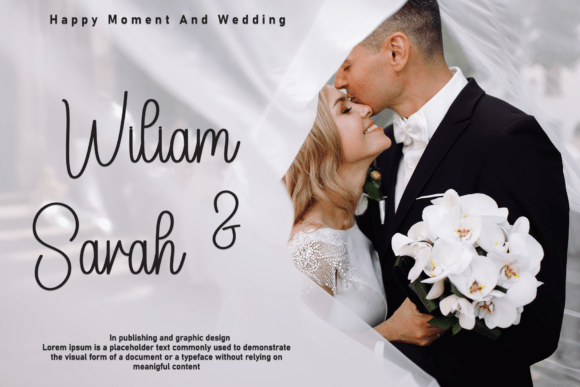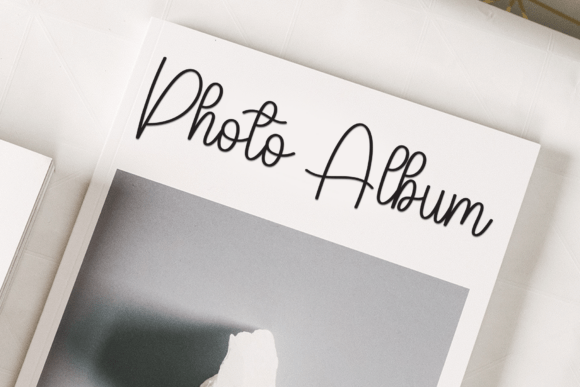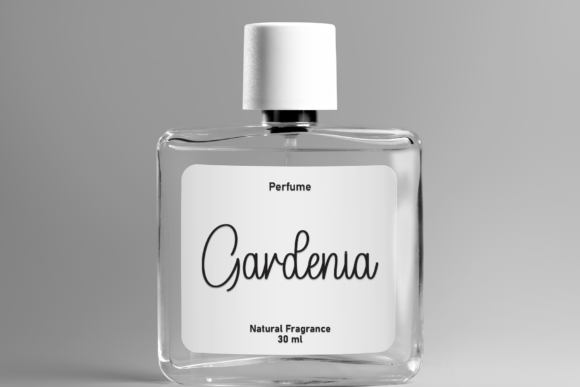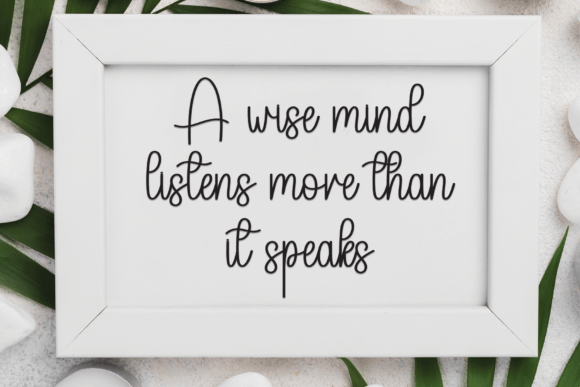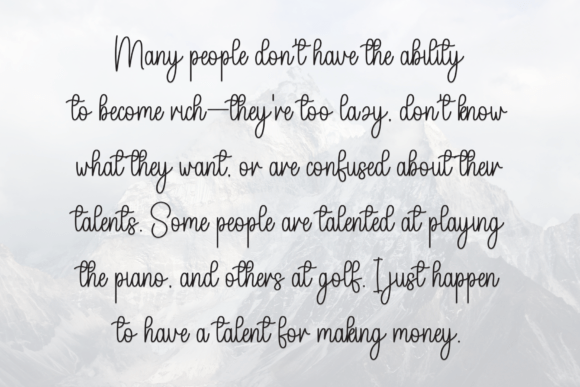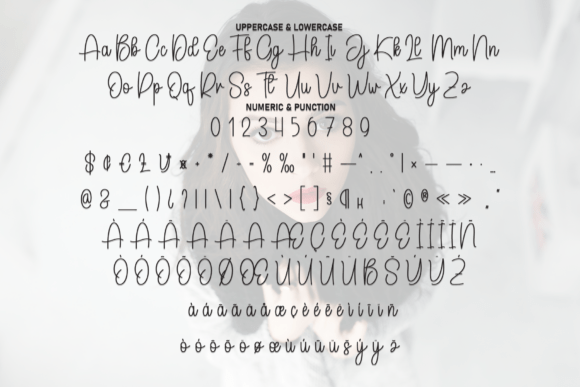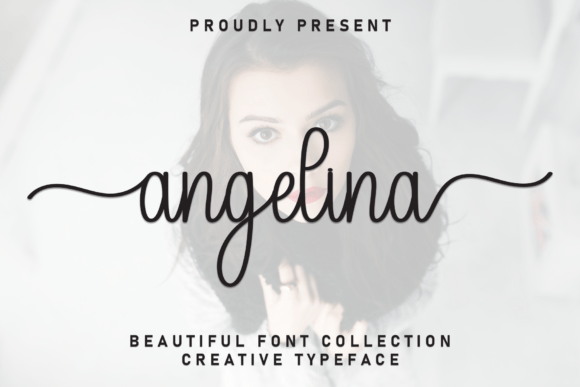
Discover the Whimsical Charm of Angelina Font
In the realm of typography, few fonts capture the essence of magic and wonder as perfectly as Angelina Font. This handwritten display font is a masterful blend of warm friendliness and sweetness, making it an ideal choice for designers and crafters looking to infuse their creations with a touch of enchantment. With its playful, bubbly personality, Angelina Font is sure to bring sparkling joy to any imaginative design.
The Perfect Blend of Warmth and Sweetness
Angelina Font’s unique charm lies in its delicate balance of warmth and sweetness. The font’s handwritten curves and loops evoke a sense of personal touch, making it feel like a bespoke creation. This warmth is perfectly balanced by a hint of sweetness, which adds a playful and whimsical touch to the font. The result is a typography that feels both approachable and delightful.
A Fairy-Tale Choice for Creative Projects
Angelina Font is a fairy-tale choice for a wide range of creative projects. Its enchanting charm makes it perfect for:
- Cherubic wedding invitations: Add a touch of magic to your wedding invitations with Angelina Font’s whimsical charm.
- Artistic greeting cards: Create one-of-a-kind greeting cards that will delight the recipient with Angelina Font’s playful personality.
- Imaginative designs: Infuse your designs with a sense of wonder and enchantment, perfect for projects that require a touch of whimsy.
The Spellbinding Charm of Angelina Font
One of the most striking features of Angelina Font is its spellbinding charm. Every curve, every loop, and every detail has been carefully crafted to create a typography that is both beautiful and captivating. The font’s enchanting charm is marked in every aspect of its design, making it a true standout in the world of typography.
Impeccably Embedding Glee into Your Designs
Angelina Font is more than just a typography – it’s an experience. When used in a design, it impeccably embeds a sense of glee and wonder, making the creation feel truly special. Whether you’re a designer, crafter, or simply someone looking to add a touch of magic to your project, Angelina Font is the perfect choice.
Tips for Using Angelina Font
To get the most out of Angelina Font, here are a few tips to keep in mind:
- Use it sparingly: Angelina Font’s playful personality shines best when used sparingly. Use it as a headline or title font to add a touch of magic to your design.
- Pair it with complementary fonts: Angelina Font pairs beautifully with clean, simple fonts that allow its playful personality to shine.
- Experiment with colors: Angelina Font looks stunning in a range of colors, from soft pastels to rich jewel tones. Experiment with different colors to find the perfect fit for your design.
In conclusion, Angelina Font is a truly unique and enchanting typography that is sure to bring a touch of magic to any design. With its perfect blend of warmth and sweetness, playful personality, and spellbinding charm, it’s the perfect choice for designers and crafters looking to create something truly special. So why not give Angelina Font a try and experience the whimsical charm for yourself?
Get Ready to Fall in Love with Angelina Font
With its captivating charm and playful personality, Angelina Font is sure to capture your heart. Whether you’re a designer, crafter, or simply someone looking to add a touch of magic to your project, Angelina Font is the perfect choice. So go ahead, dive into the magical allure of Angelina Font, and discover the whimsical charm that awaits.